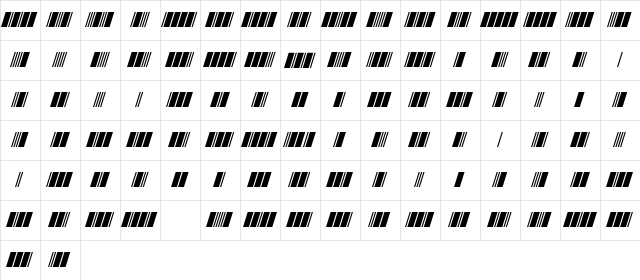
Morse Tech Regular
| Foundry | Neale Davidson |
| Designer | Neale Davidson |
Design Context for Morse Tech Typeface
Morse Tech has a distinctly futuristic character, with geometric precision and clean angles that feel at home in technology, gaming, and sci-fi contexts.